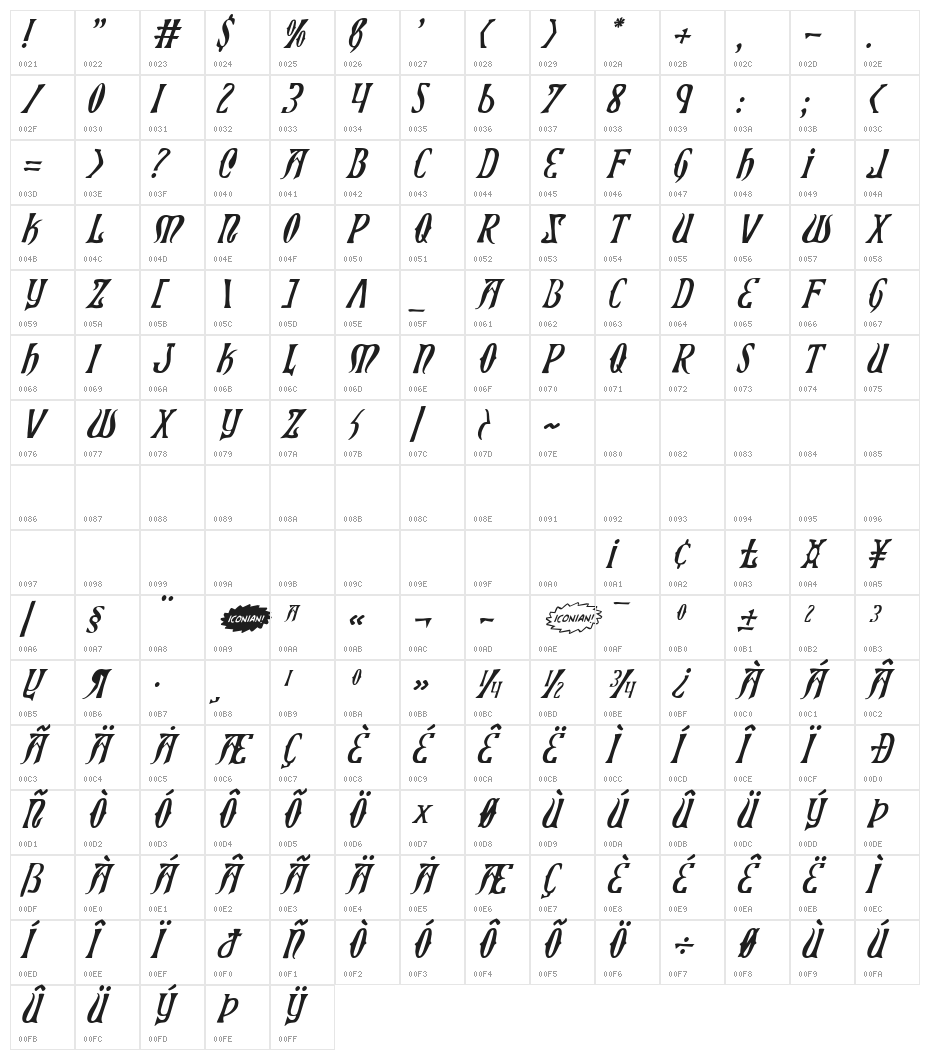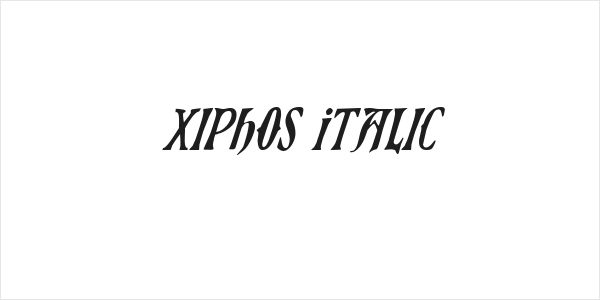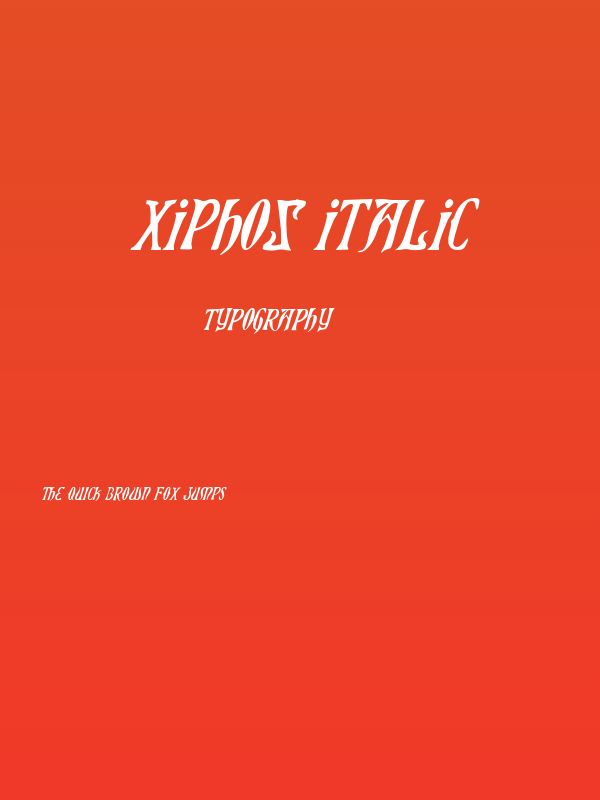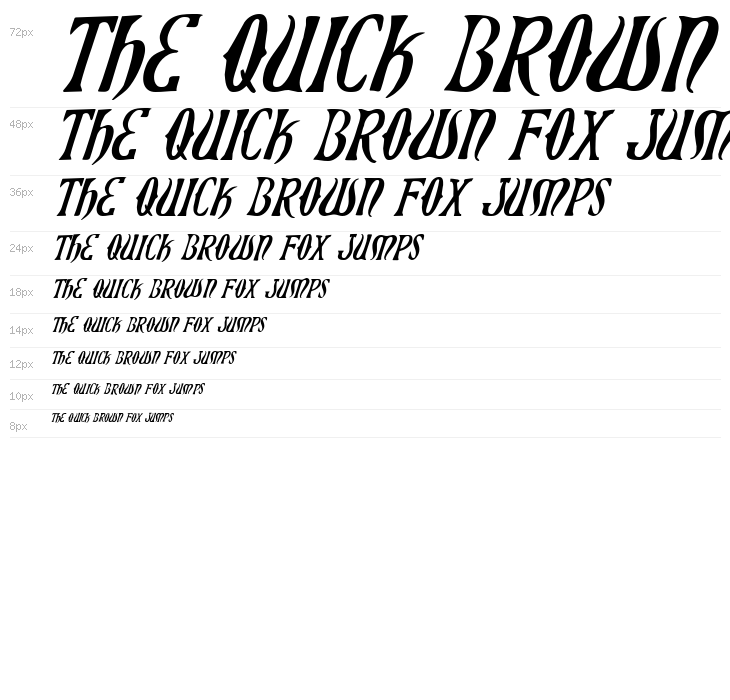
Xiphos Italic Font
Xiphos Italic Description
This font features a dynamic and bold italic style with sharp, angular serifs and a distinct slant that gives it a sense of movement and energy. The uppercase letters are tall and commanding, while the lowercase letters maintain a consistent style that complements the uppercase. The numerals are designed with a similar flair, ensuring readability while maintaining the font's unique character. Special characters are crafted with the same attention to detail, making them stand out. The overall design is both modern and edgy, suitable for making a strong visual impact.
| Proposed Projects | Ideal for branding, poster design, and headlines that require a bold statement. |